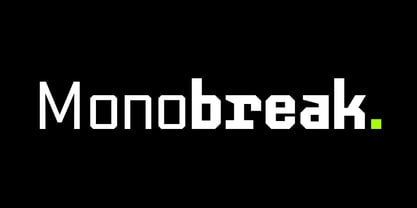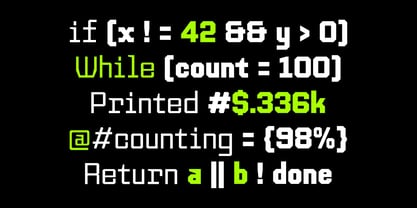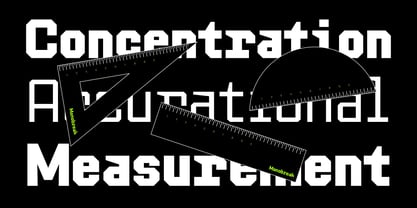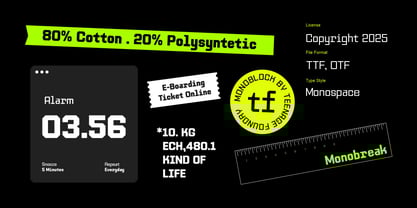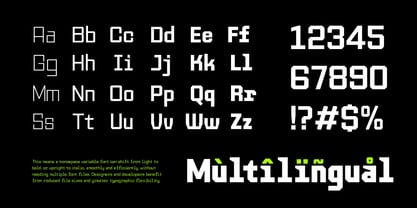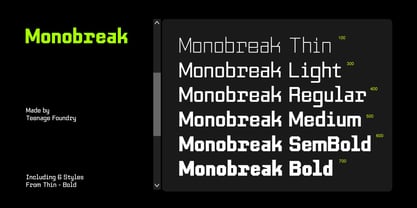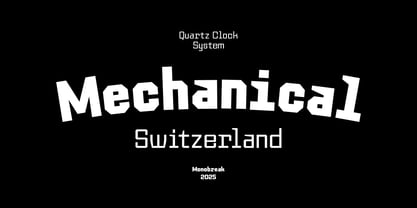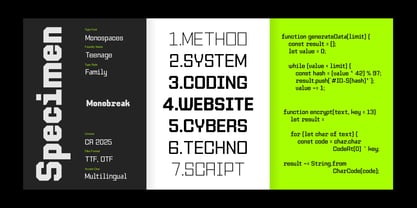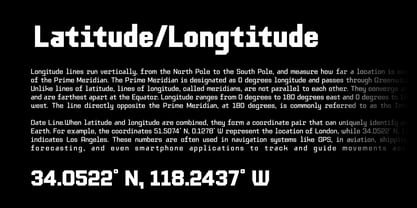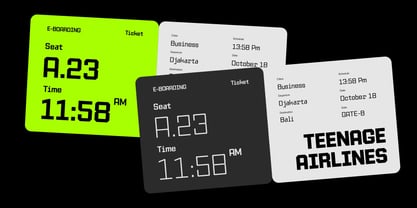
TF Monobreak
by Teenage Foundry
The TF Monobreak Font Family was designed by Ahmad Ginanjar Riyadi and published by Teenage Foundry. TF Monobreak contains 6 styles and family package options. More about this family
Monobreak is a modern geometric monospace font crafted with clean precision and refined balance. Each character is built with a perfect harmony of technical structure and contemporary style, making it ideal for designs that demand a bold, professional, and futuristic presence. Featuring five weights from Thin to Bold Monobreak offers exceptional versatility for a wide range of uses, from digital interfaces and modern branding to minimal editorial layouts. With its consistent rhythm and sleek construction, Monobreak delivers a sense of stability, clarity, and technical elegance in every line of text.
Designers: Ahmad Ginanjar Riyadi
Foundry: Teenage Foundry
Teenage Foundry, established in 2023, is an Indonesian studio specializing in captivating display fonts. With a team of three talented members, we create bold and innovative designs inspired by youth culture and Indonesia's dynamic spirit. Our fonts add a distinct personality and visual impact to any project, making a lasting impression. Choose from a wide range of styles, from expressive to sophisticated, and unleash your creativity with Teenage Foundry.